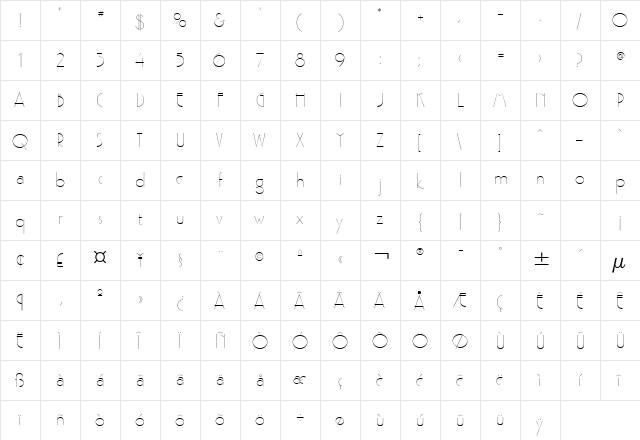
Gaston Wide Normal
Design Context for Gaston Wide Typeface
Gaston Wide takes a measured approach to typography — its balanced proportions and neutral character make it a reliable workhorse for both digital and print work.